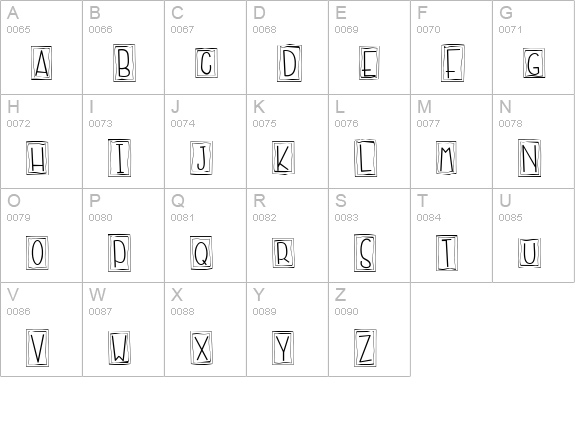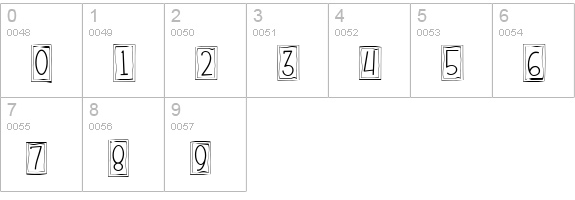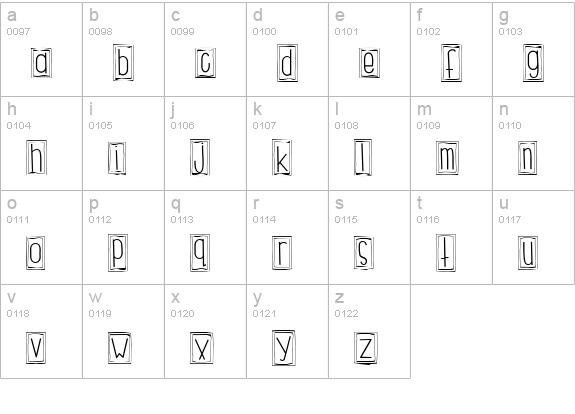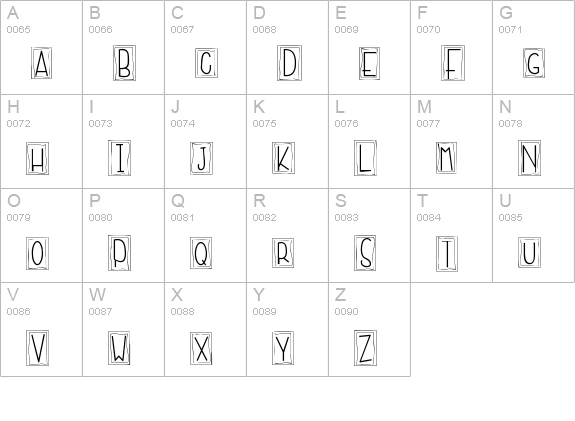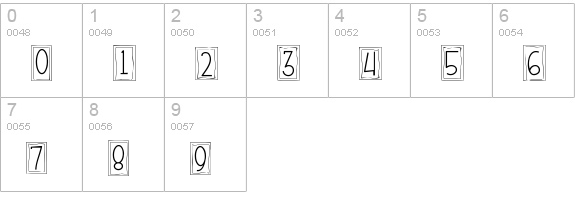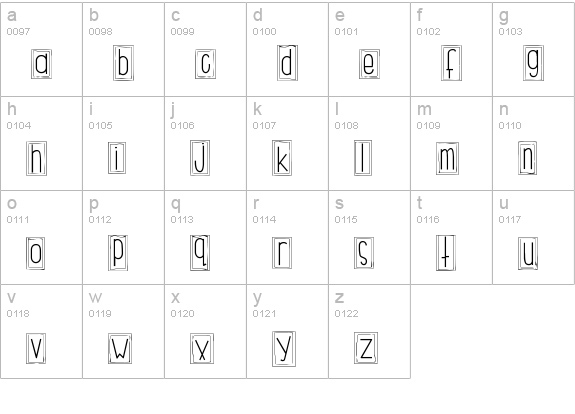
CK Long & Lanky Font Details
CK Long & Lanky font is a modern and stylish typeface that exudes elegance and sophistication. With its long and slender letterforms, this font brings a unique charm to any design project. The sleek lines and graceful curves of CK Long & Lanky create a sense of fluidity and movement, making it perfect for both headings and body text. This font is not only visually appealing but also versatile, suitable for a wide range of design applications such as branding, packaging, invitations, and more. Whether you're designing a poster, website, or logo, CK Long & Lanky font will add a touch of class and sophistication to your project. Best of all, CK Long & Lanky font is available for free download at FontsMarket.com. So why wait? Add this elegant and stylish font to your collection today and elevate your design projects to the next level.